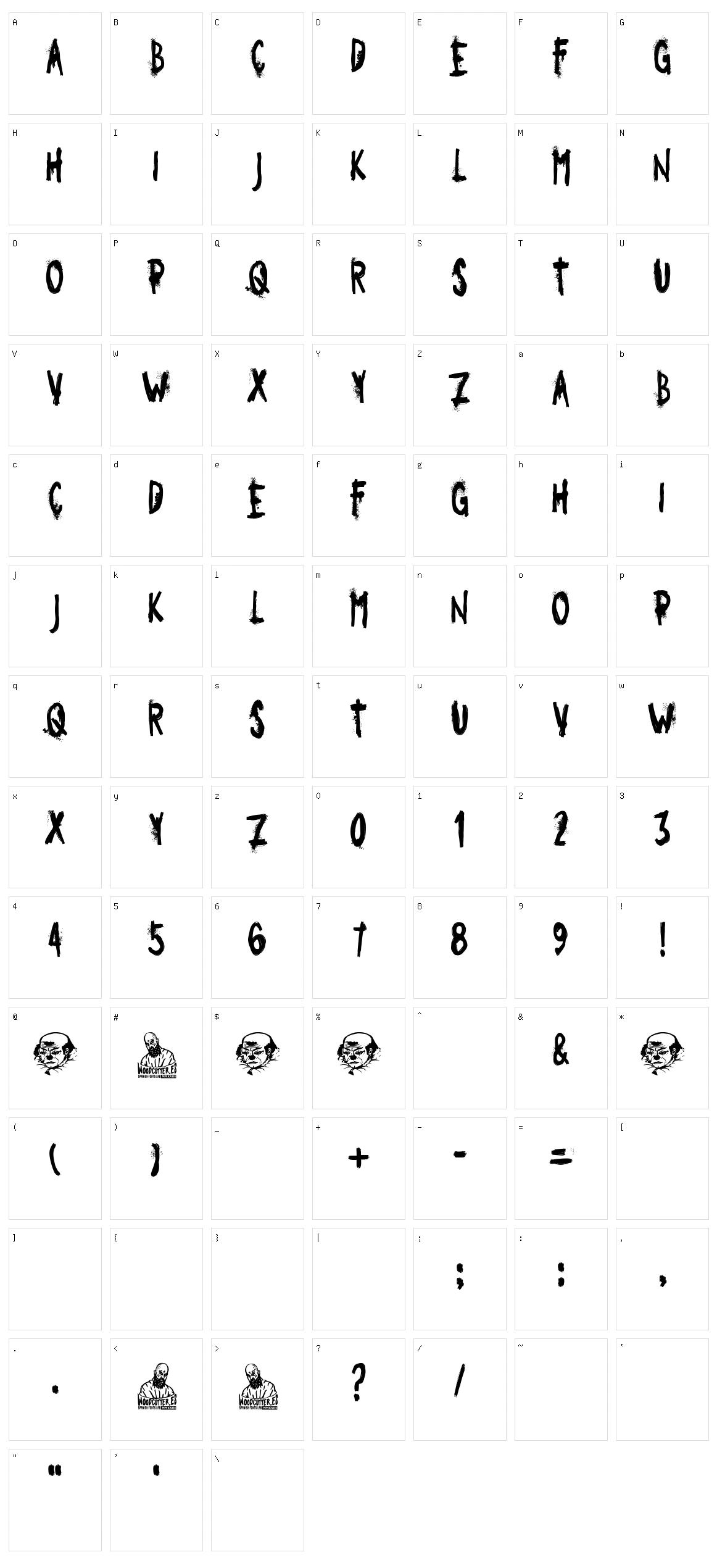
The free font Payaso Triste is carefully designed by Woodcutter, showcasing a thoughtful balance of creativity and usability and falls under the Horror font style. When you download the ZIP file, it contains only 166.26 KB of font files, making it lightweight and quick to download. Please review the license details below to understand permitted usage and distribution rights. If license information is not available, we recommend using this font for personal projects only or contacting the author directly for commercial usage permissions.